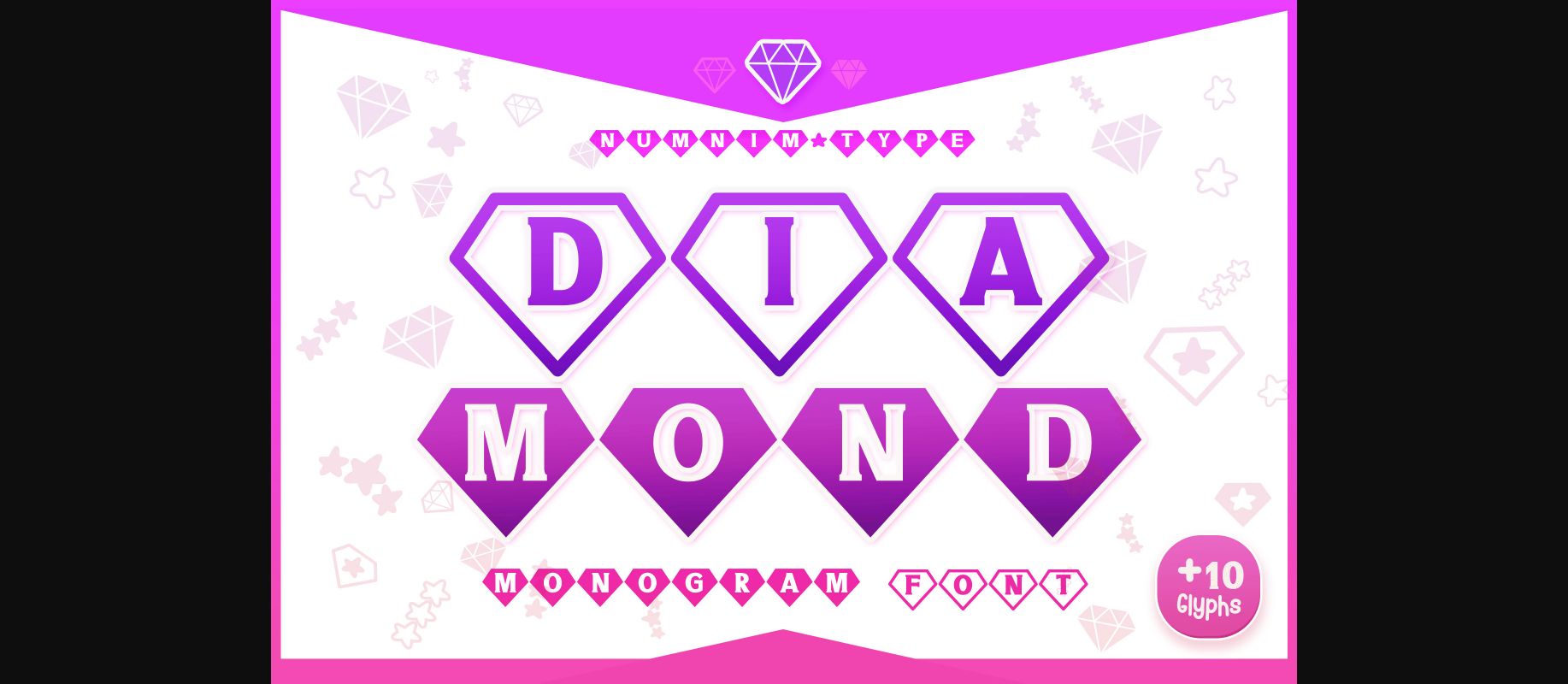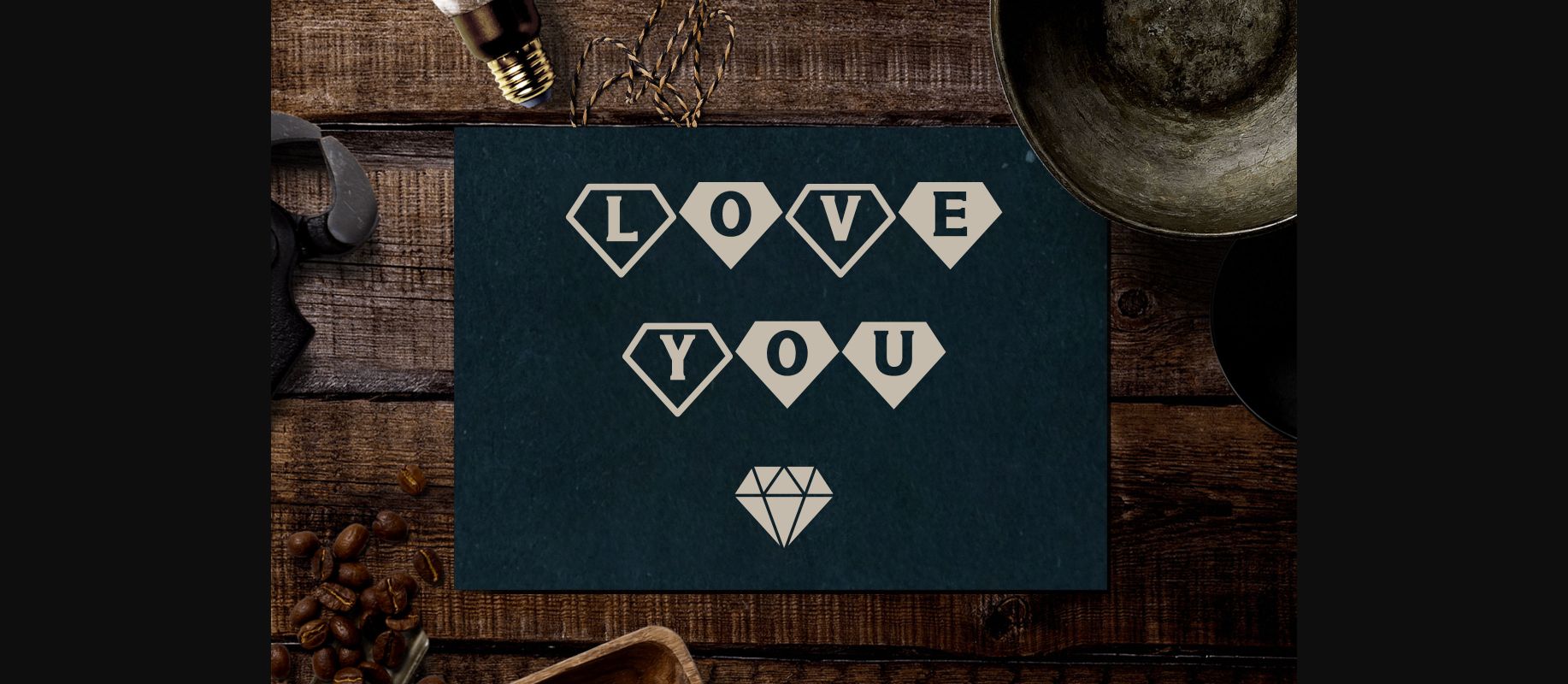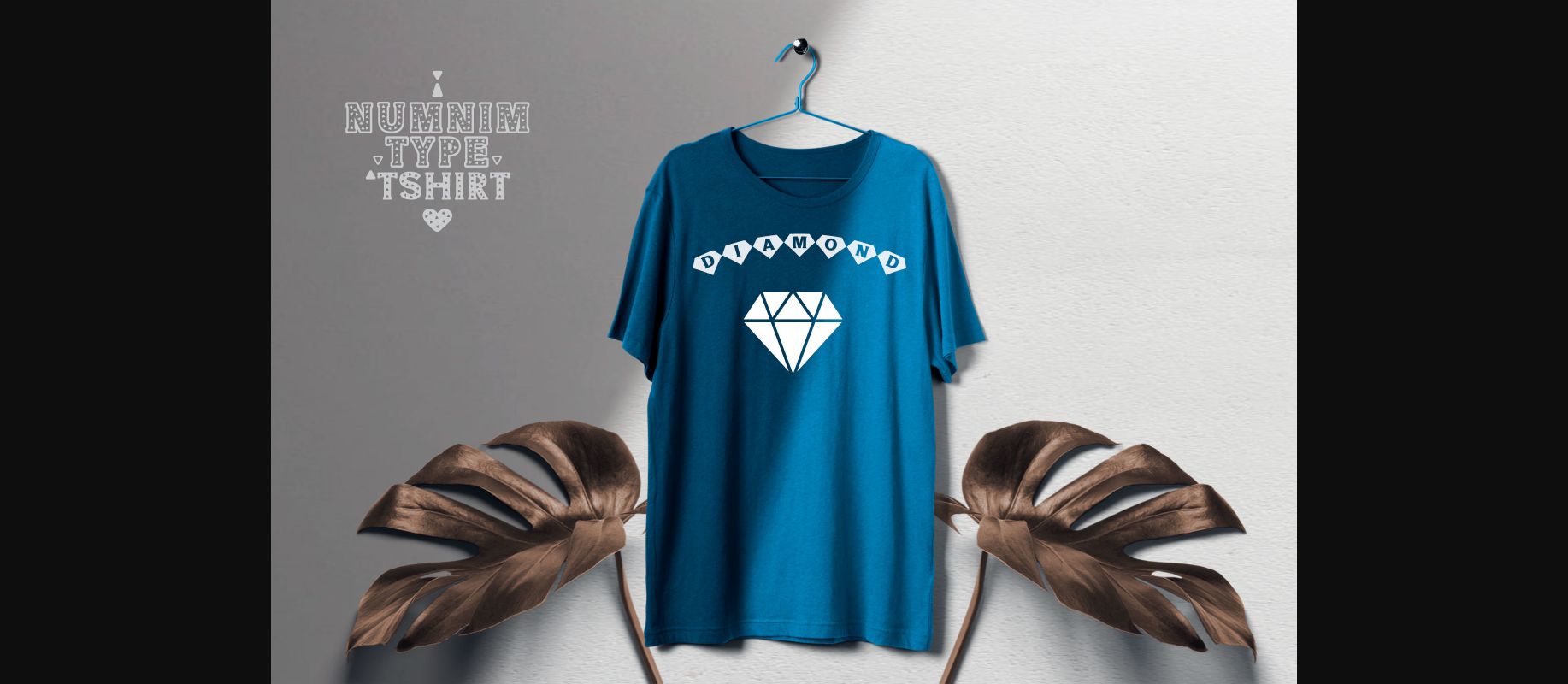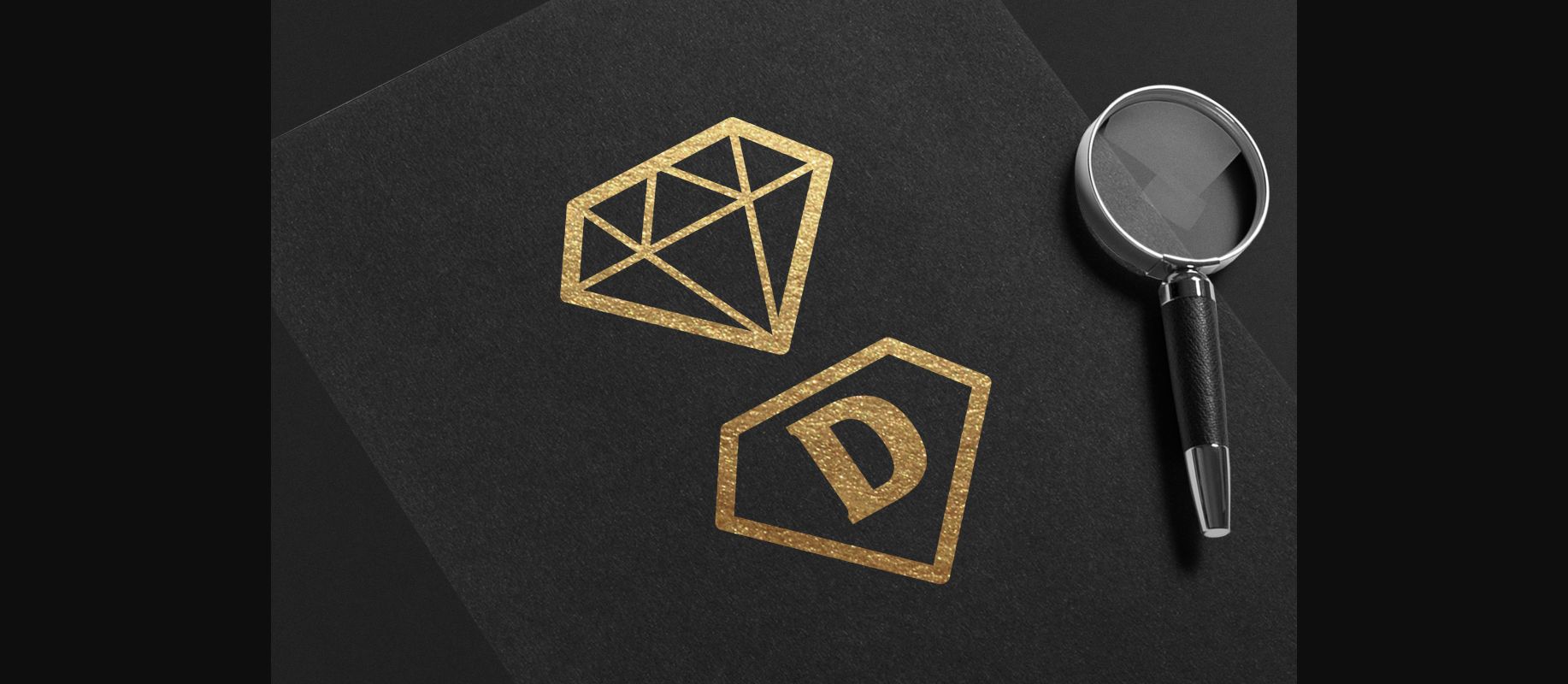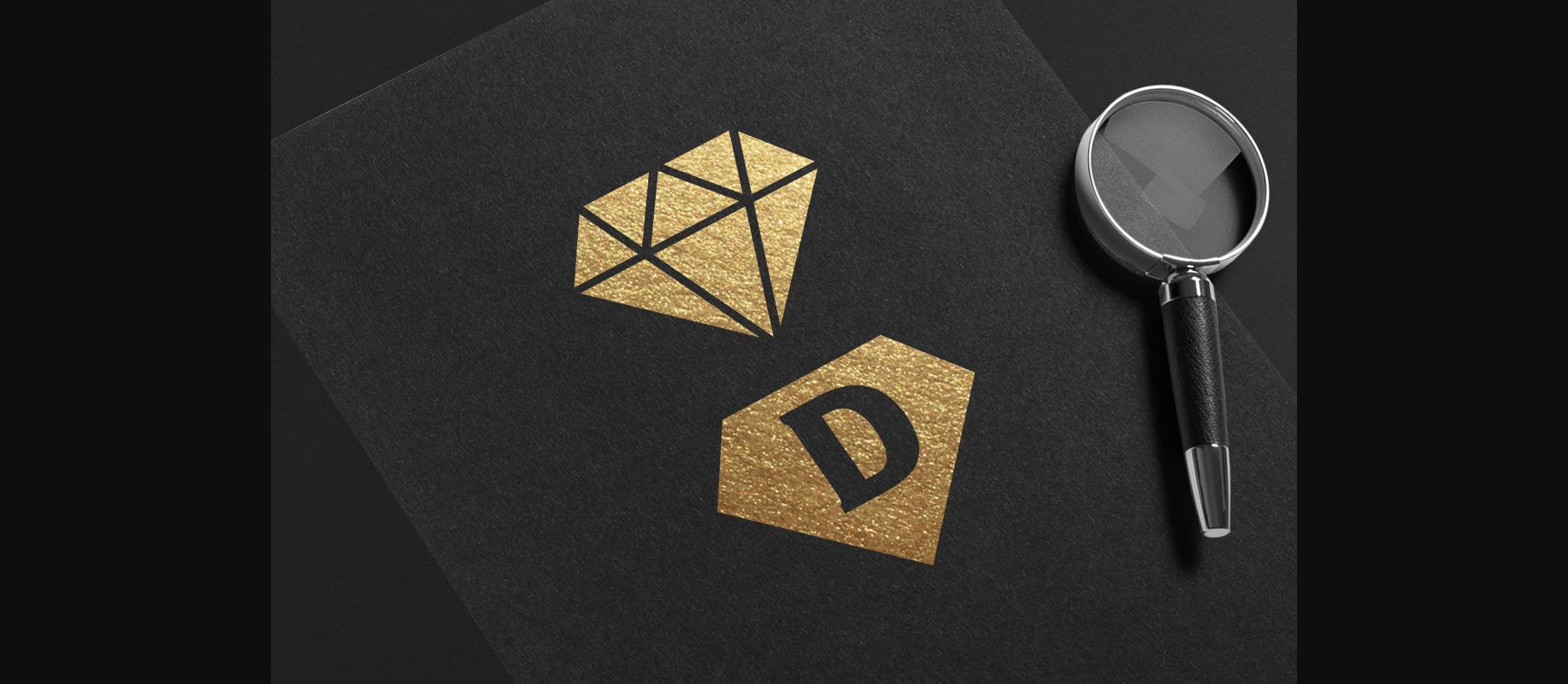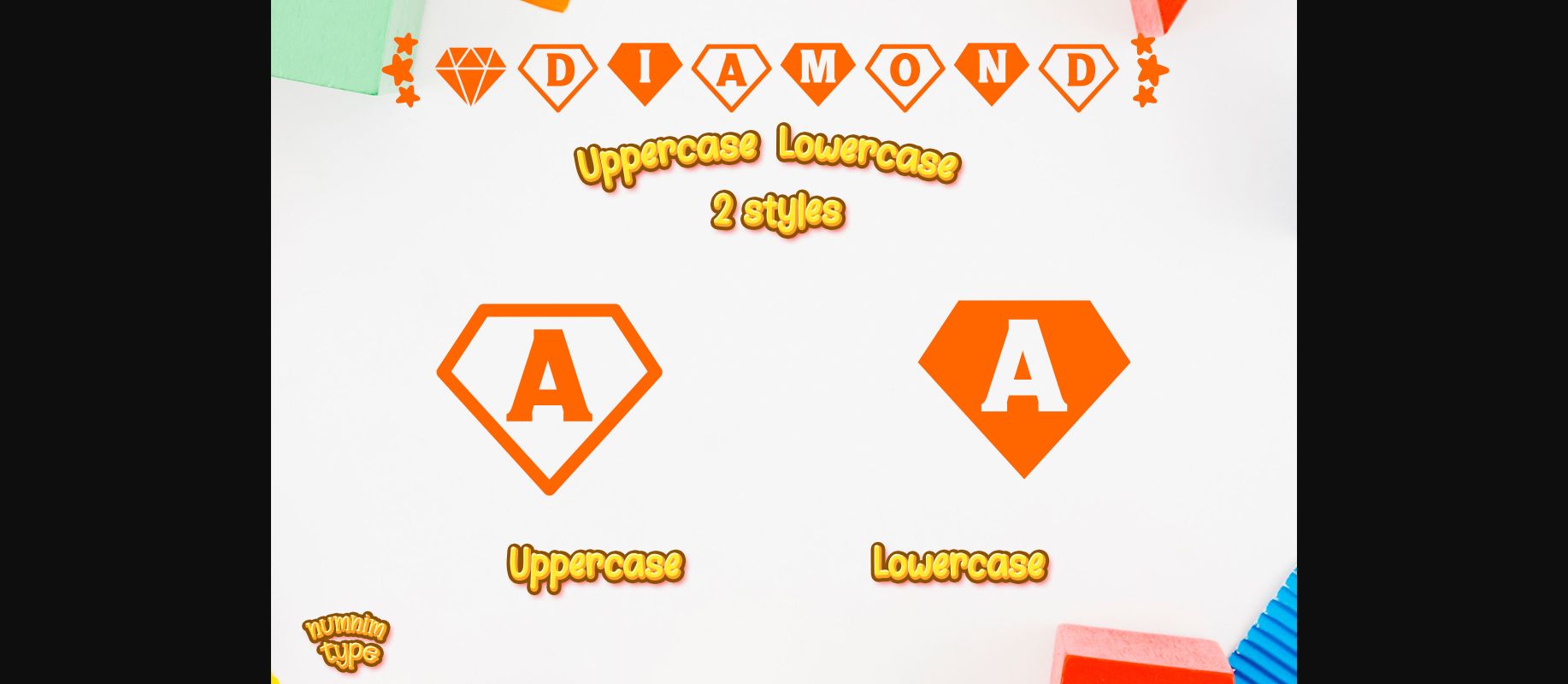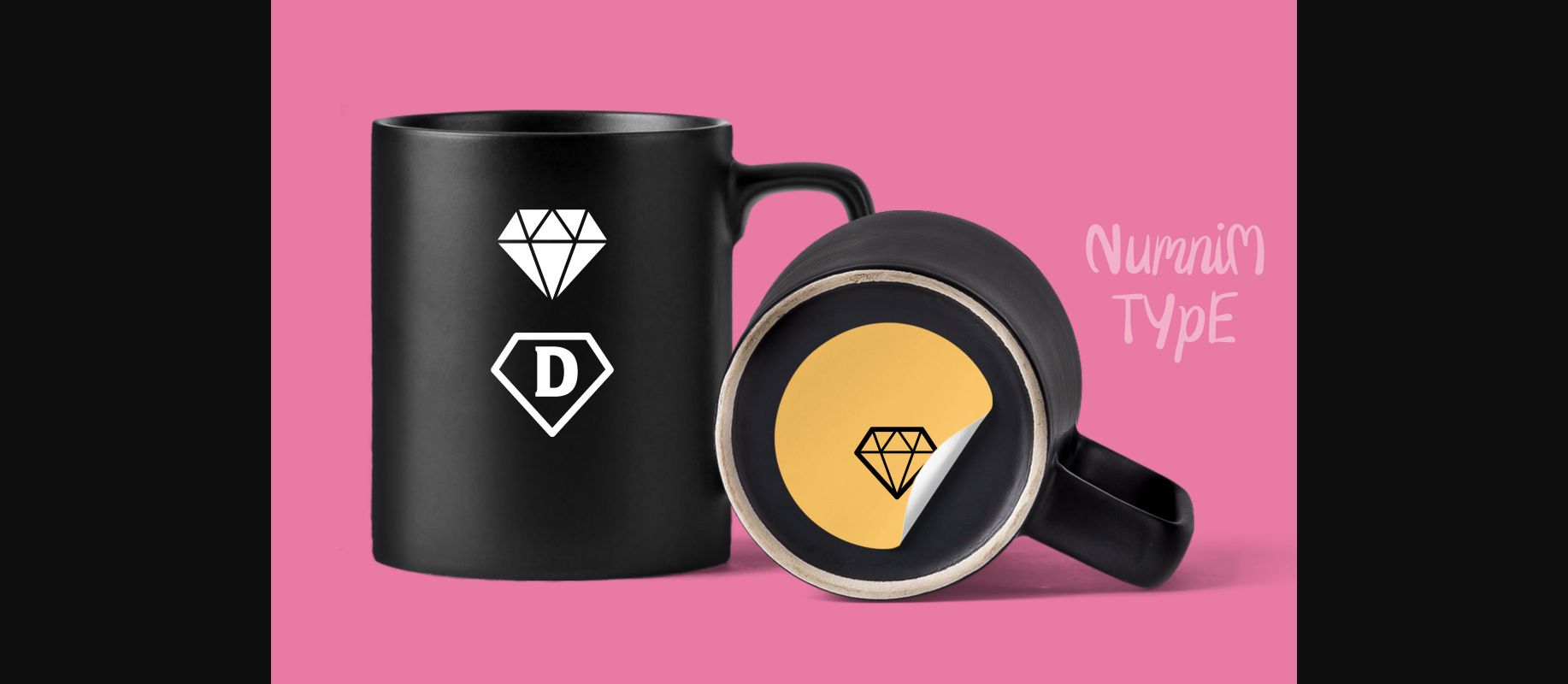
Diamond Font
About Diamond Font
Diamond is a cool, glamorous wedding themed decorative font. It is PUA encoded which means you can access all of the amazing glyphs and ligatures with ease!